Making Catalpa: wood & digital
Inspired by woodtype, creating the Catalpa family was not an easy process. Veronika and José discuss the multi-year journey, the lows and highs, and the digital and wood type that resulted from it.
In 2014 we touched on the first ideas around woodtype and billboard posters from the 19th century. Back then it was a simple fascination with the variety and quirkiness these posters displayed. Around that time we had been invited by Pelle Anderson from Sweden to give a talk about our work as part of a typographic lecture series. When walking around Stockholm, some tabloid newspaper front pages caught our attention.
Some late 19th century billboard posters that served as the initial intriguing factor.
As is common in tabloids, the headline fonts are dense, dark, and set in all caps to be attention-grabbing. But what was most interesting were the incorporated accents. The ring and dieresis were stuck inside the letter with a white frame around them to allow for very tight line-spacing. In some cases this solution looked rather elegant, but less so in others. Since our font library focus is very much on editorial design, we really liked this option and made a mental note for the future.
Swedish tabloid newspaper displays found on the streets of Stockholm and a sketch of Catalpa with cut-out diacritics.
In the following months we got distracted with other pressing projects, so this initial idea lay dormant for a few years. At some point though our wish to design a geometric sans serif came back to the forefront and we started drawing.
Geometric sans serifs were always popular, but that trend has increased in recent years. Some branding experts have tried to explain this trend simply as companies ditching their unique logotypes for a more unified, simple, and basic look which could represent any brand message, while surviving in an increasingly digital universe.
A table showing the trend to simple, geometric logotypes for big brands of the past years.
Not very satisfied or convinced by our first attempts, we remembered the Swedish tabloids and 19th century woodtype grotesques. When we looked at our overall catalogue, we saw a need in our growing font library to design an expressive display headline family for magazines, packaging, posters, and the like. It needed to carry enough personality by introducing a pinch of quirkiness and an unpolished, handcrafted appearance. So we turned again to antique woodtype specimens for inspiration.
German and American type specimens that served as sources of inspiration.
Classic type specimens showing grotesque style type that served as sources of inspiration.
However, given our tendency for text typography, we could not stop at creating just a heavy single style font, and therefore decided to explore the then-very-new variable font format. Would it be possible to create a variable font that went from one extreme to the other and included “text weights” in the middle?
So we designed a thin master and analysed the resulting intermediate weights starting with just one axis (the weight axis). Unfortunately they weren’t appealing or successful due to the necessary stark change of contrast on both extremes of the design space. Because of the higher — and altogether different — set of standards for text typefaces, it would have taken too much tweaking and additional masters (at least for certain glyphs) to make the resulting glyphs work as text styles in the middle.
Top row: testing intermediate instances resulting from the interpolation between Thin and Extrabold. Bottom row: first sketch of Catalpa’s Thin master.
Letting this frustration dissipate for a while, another thought surfaced. What if the family were expanded in other, less traditional ways, such as with nested words/glyphs, special ligatures, stencils, decorative 3D elements, colour layers, or a fake wood aesthetic? So we set out again to test these options and joined forces with Gui Menga, a talented Brazilian lettering artist we met in Saõ Paulo during ATypI 2015.
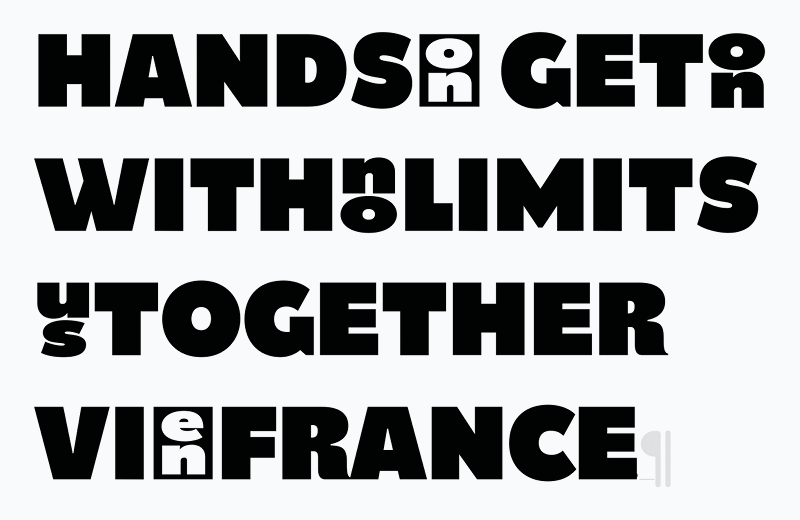
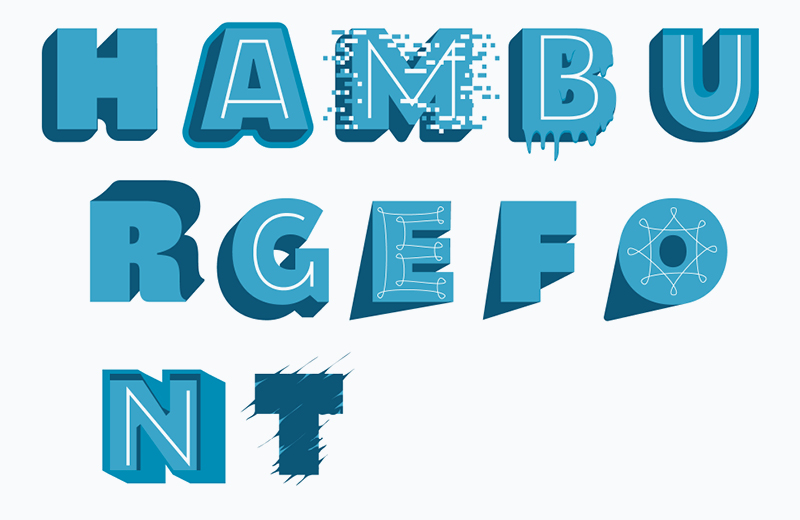
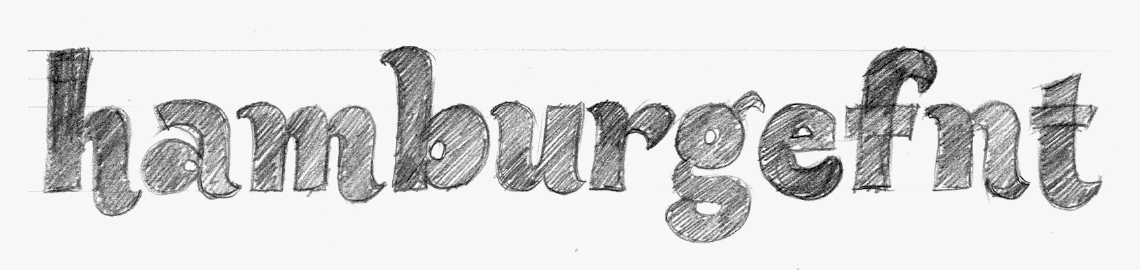
Explorative ideas by Gui Menga.
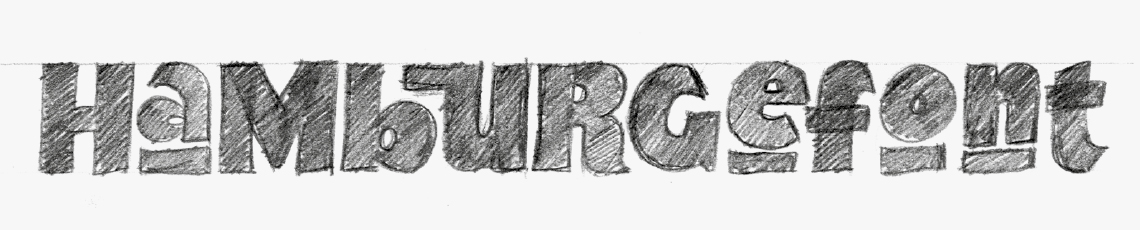
Exploring sketch by Gui Menga showing special ligatures and nested characters.
Experiments remained experiments though. Sadly, none of the ideas were convincing enough to pursue as a fully mature type family, so we returned to the previous intention of a variable font with just one axis. If the middle weights simply wouldn’t work with this family, we decided to put our energy where it would. The difference this time would be to create two variable families at the thin and heavy ends of the spectrum only — going from Hairline to Light and Extrabold to Ultrablack, with nothing in between.
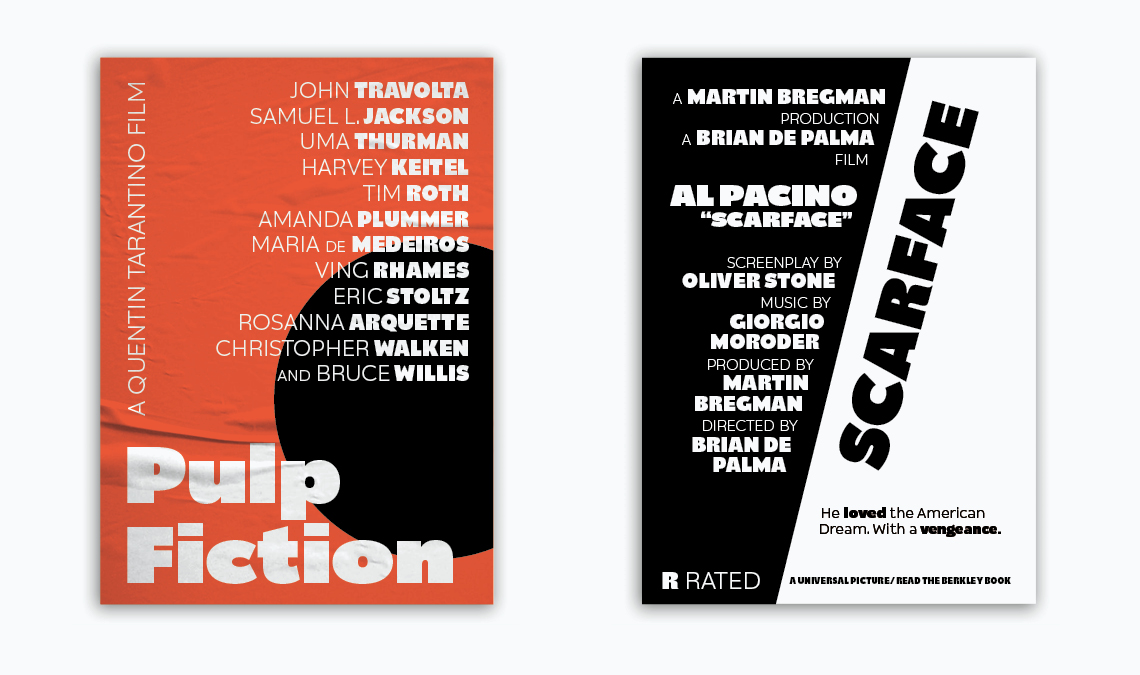
While working on Catalpa in 2018, a talk by Rafael Dietzsch at ATypI Antwerp about his woodtype project in Brazil inspired the idea to tie everything together and create physical wood sorts out of one of Catalpa’s heavy weights. It took us a little while to turn this into reality, but it was worth the wait. You can read about the process and background in an interview we led with Rafael Dietzsch and Rafael Neder here and see the letterpress printed posters here and here.